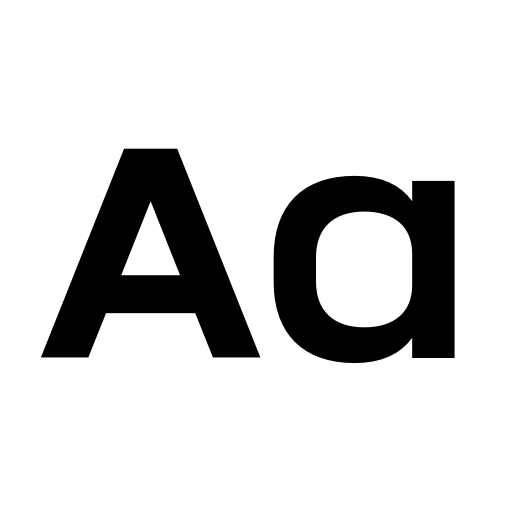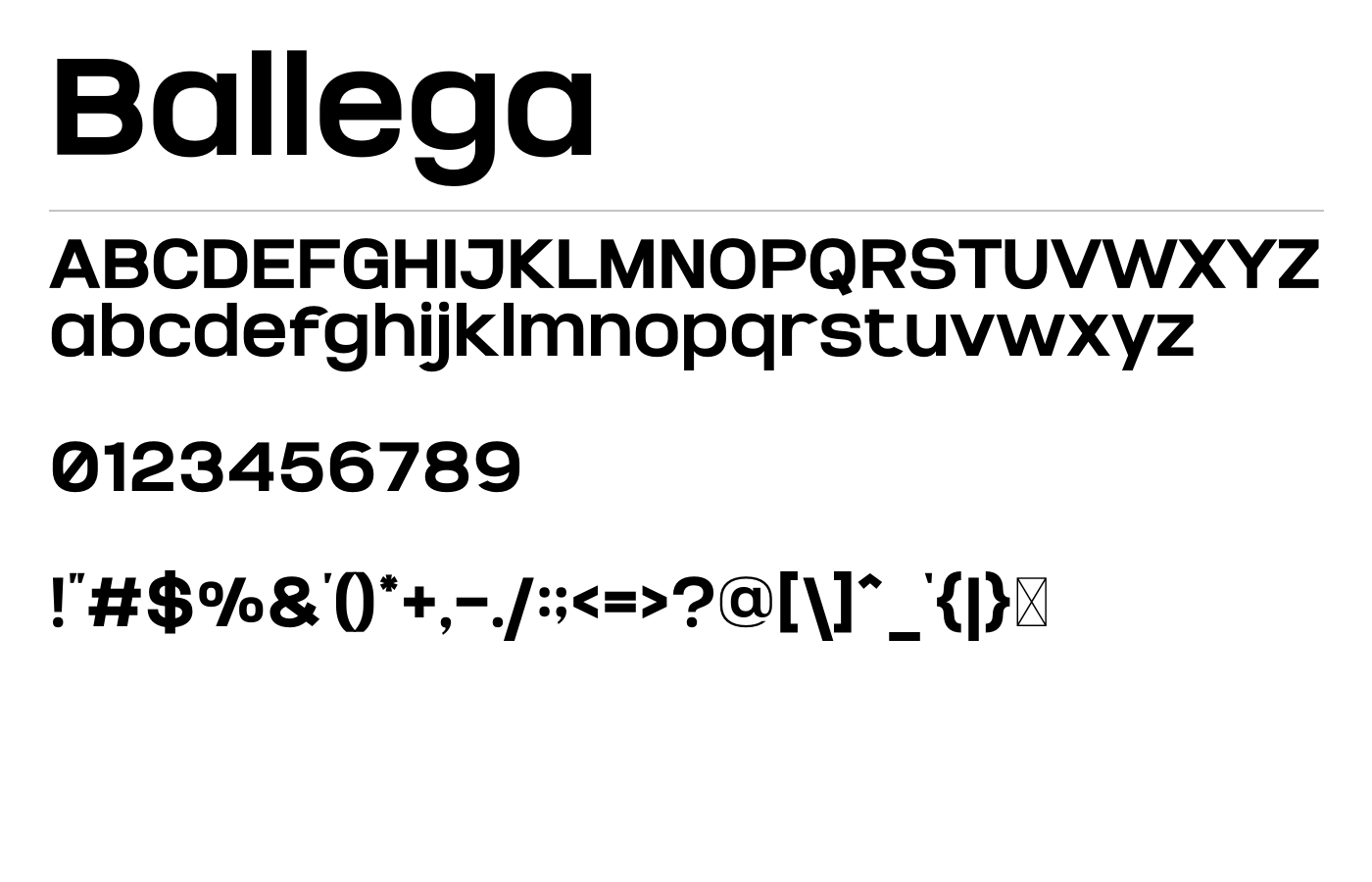
Ballega is a clean and modern sans serif font with a strong, bold weight and a straightforward geometric structure. Its wide, open letterforms and consistent stroke widths make it highly legible, perfect for headlines, branding, and digital use where clarity and impact are key. This font conveys confidence and simplicity, fitting well in contemporary design projects that require a professional yet approachable tone.
Ballega Font
About Ballega Font
| Font family | Ballega Font |
| Designer | Brandsemut |